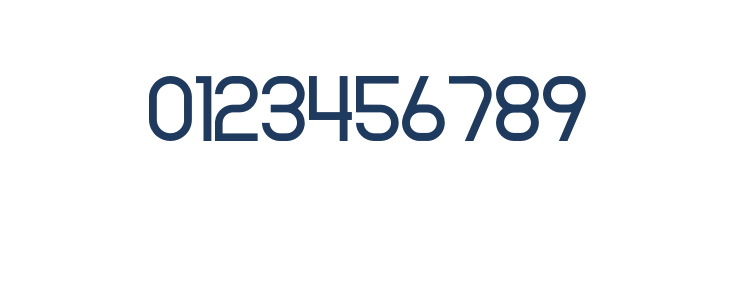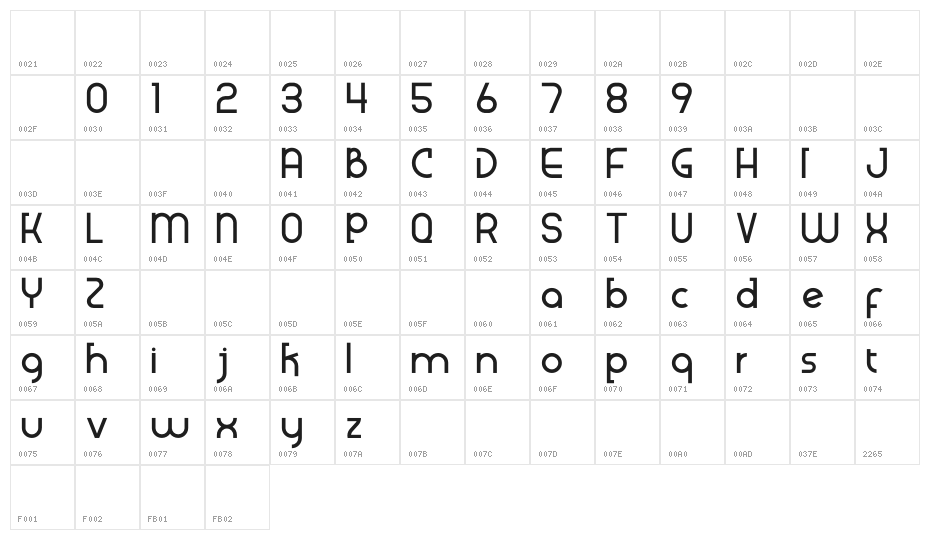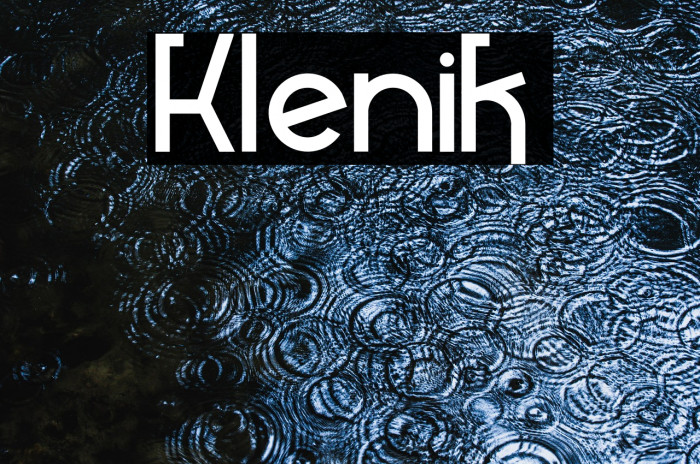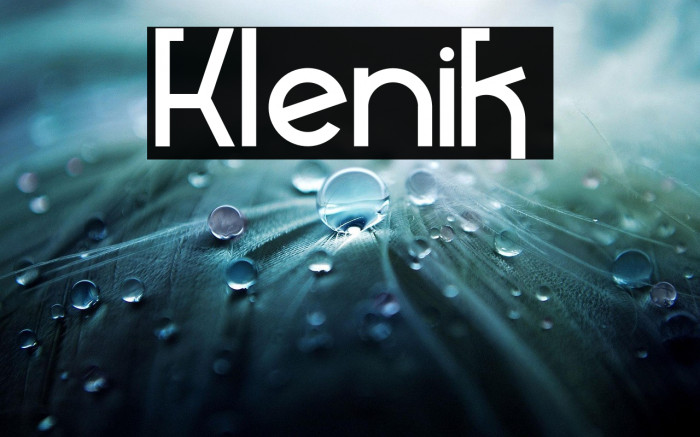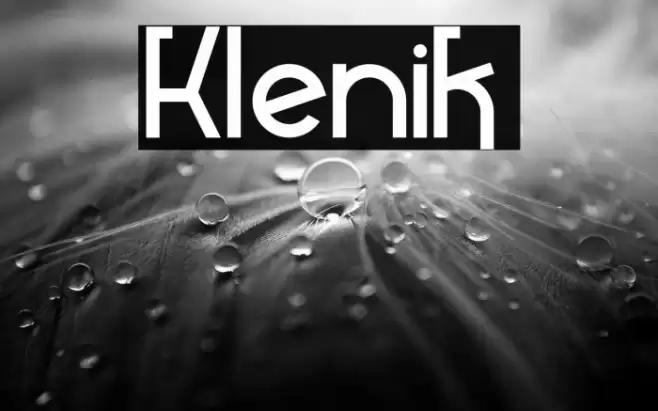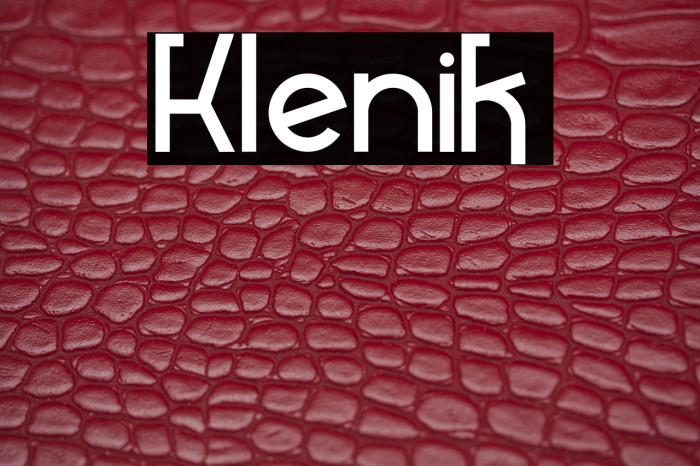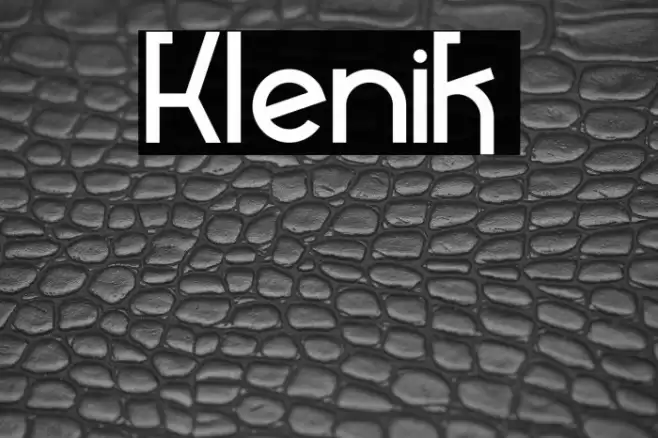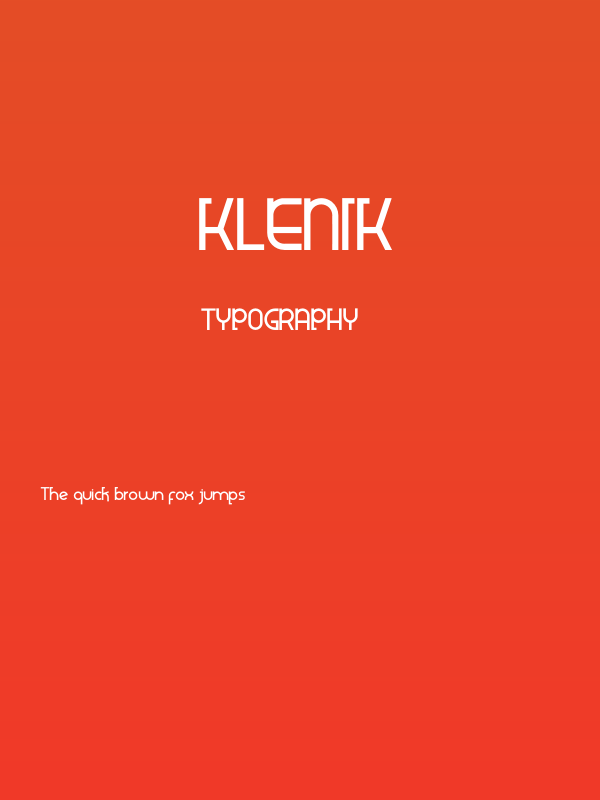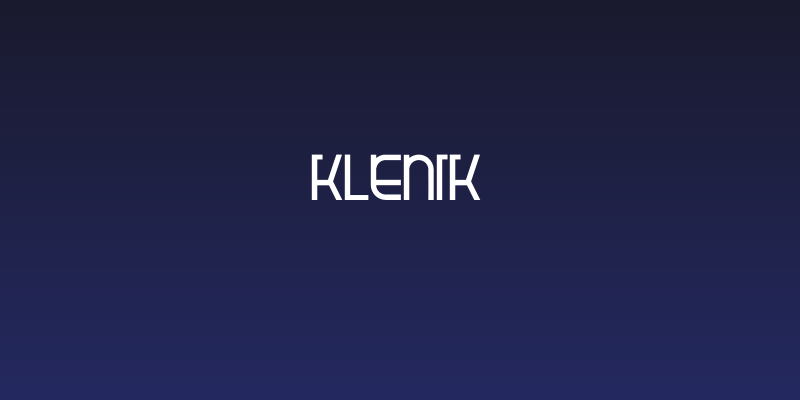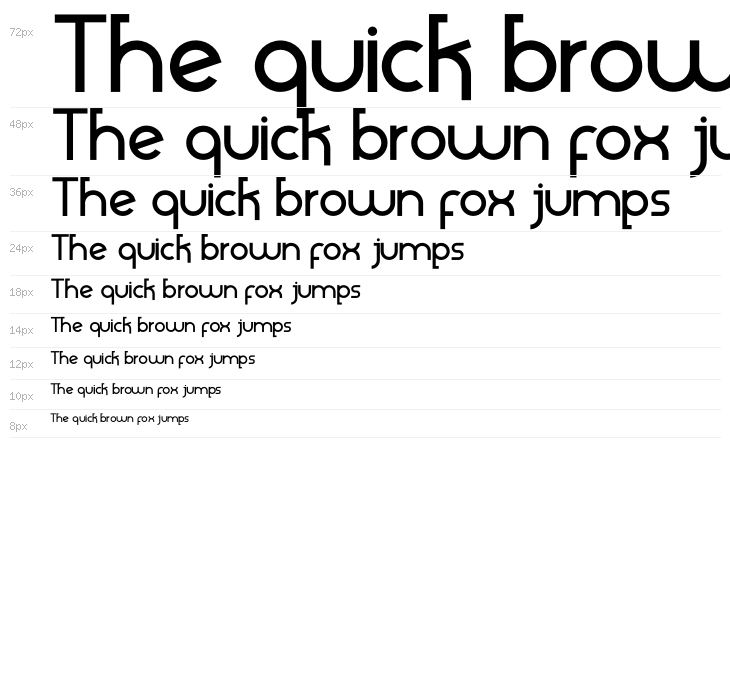
This font features a modern, geometric design with clean lines and a uniform structure. The characters are constructed with a consistent stroke width, giving it a sleek and contemporary appearance. The uppercase letters are bold and striking, while the lowercase letters maintain a harmonious balance with rounded edges. The numerals are clear and legible, making them suitable for various applications. The overall style is minimalistic, with a slight futuristic touch, making it versatile for both digital and print media.
| Proposed Projects | Ideal for branding, advertising, tech-related projects, and modern web design. |